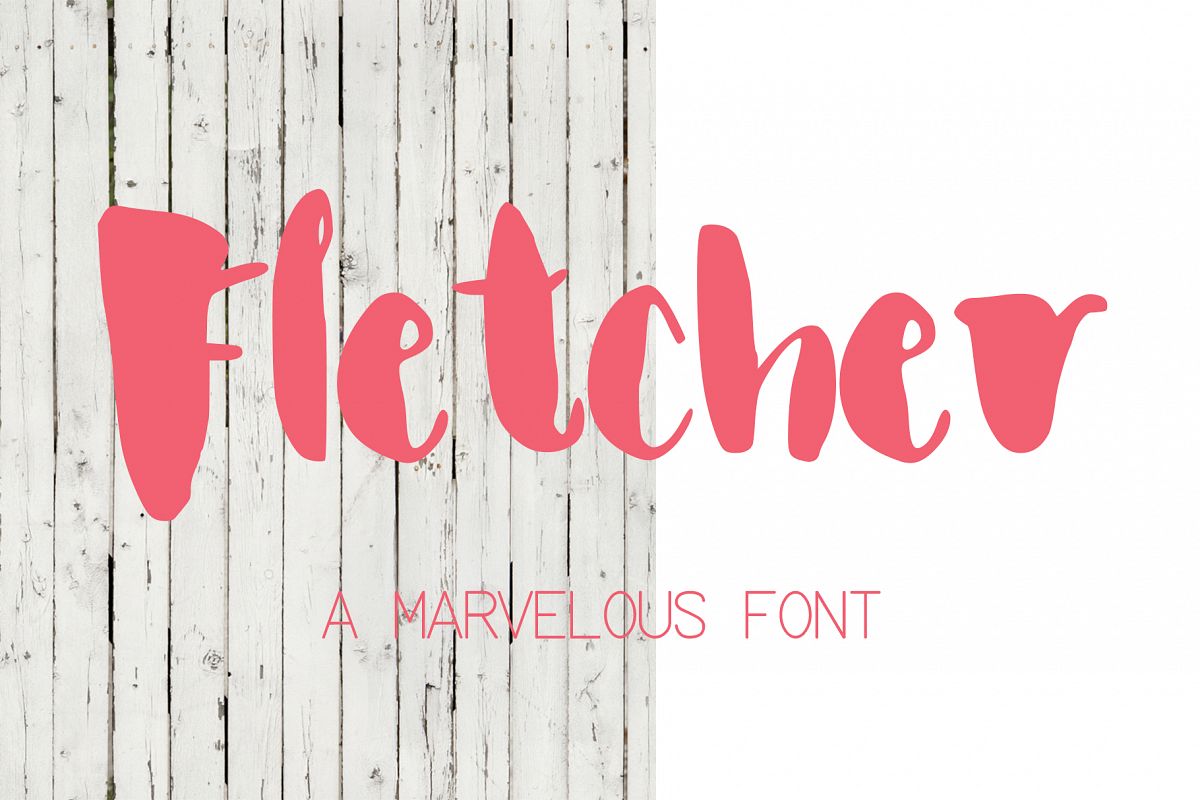
Fletcher Font
Introducing Fletcher, a marvelous handwritten script font.?
Perfect for any calligraphic and logo designs, birthday invitations.
Fletcher font contains upper & lowercase characters, full set of punctuation and numerals.